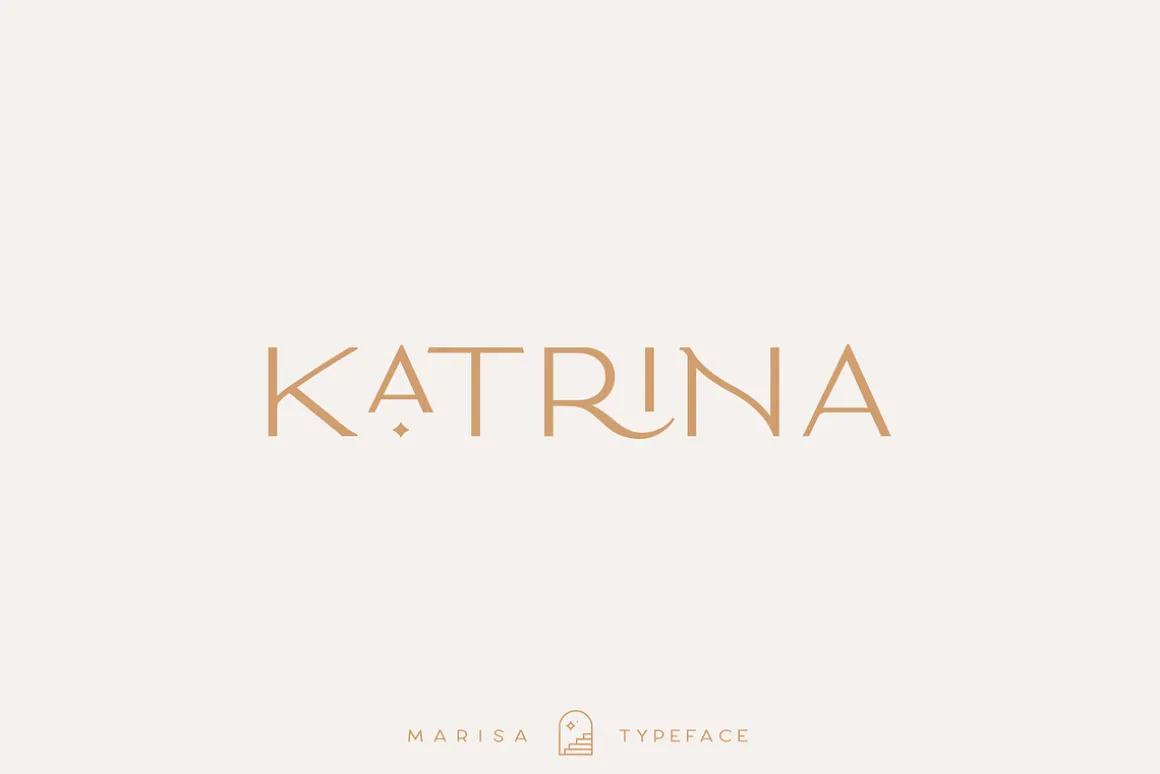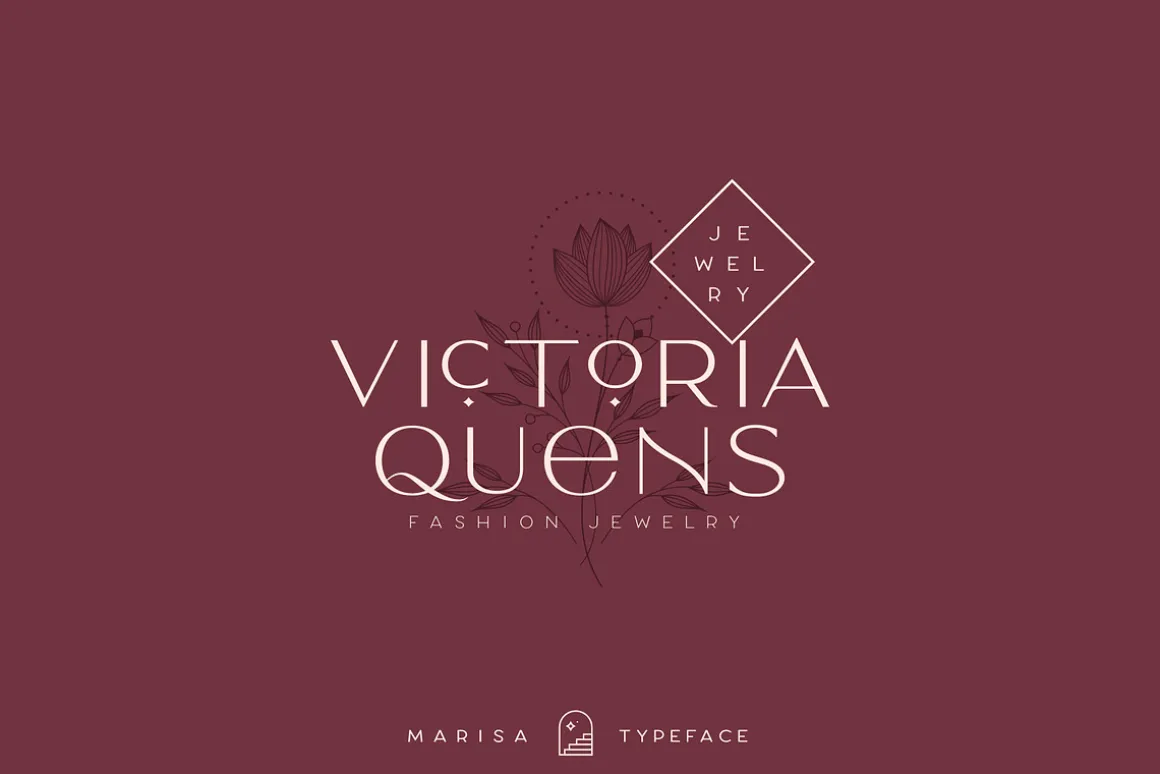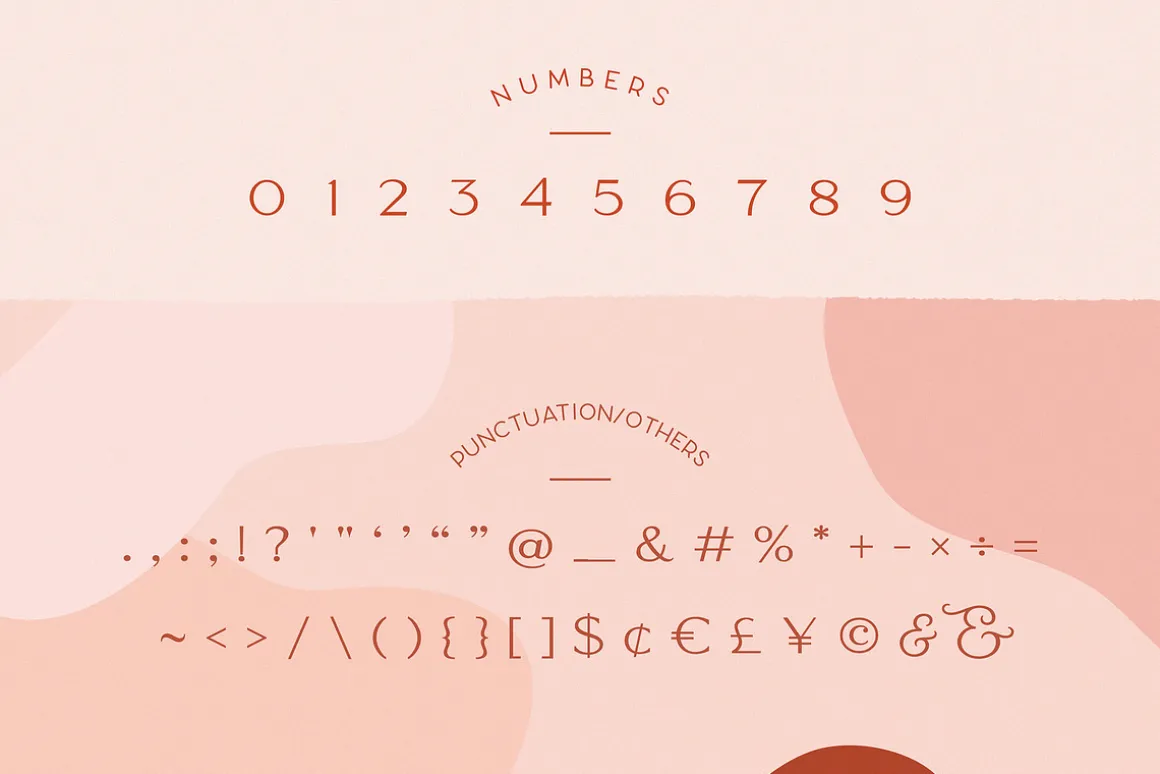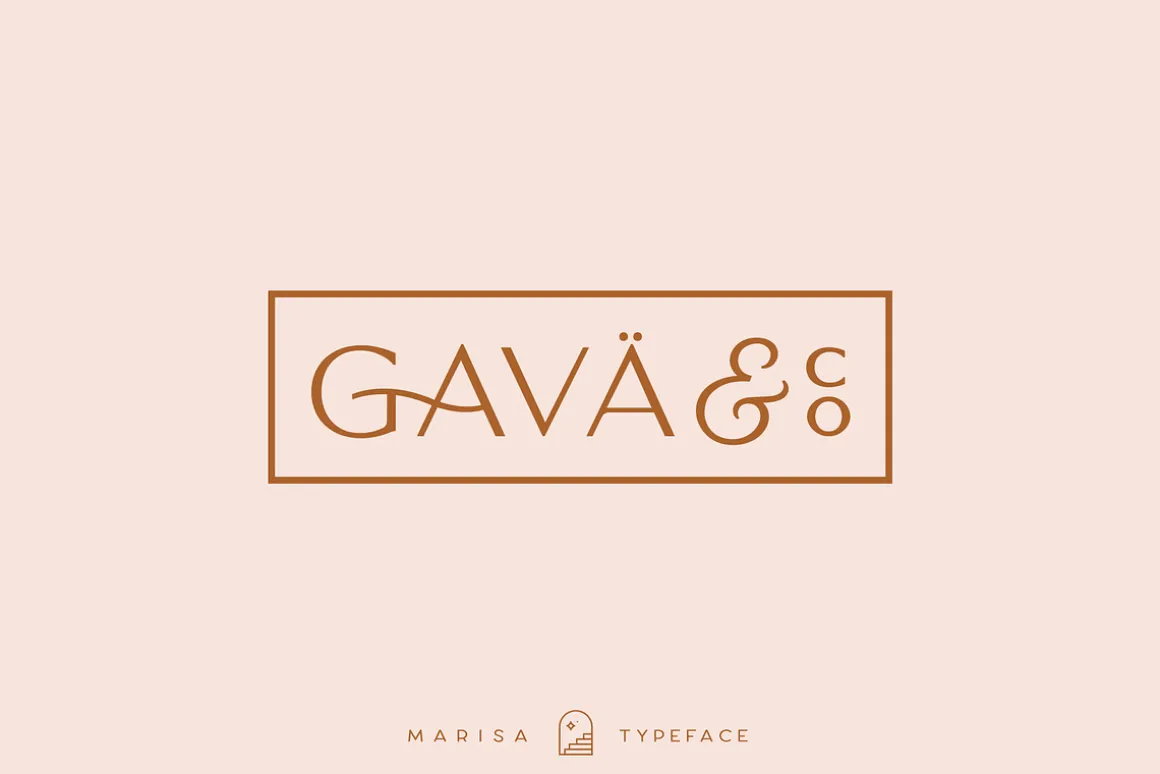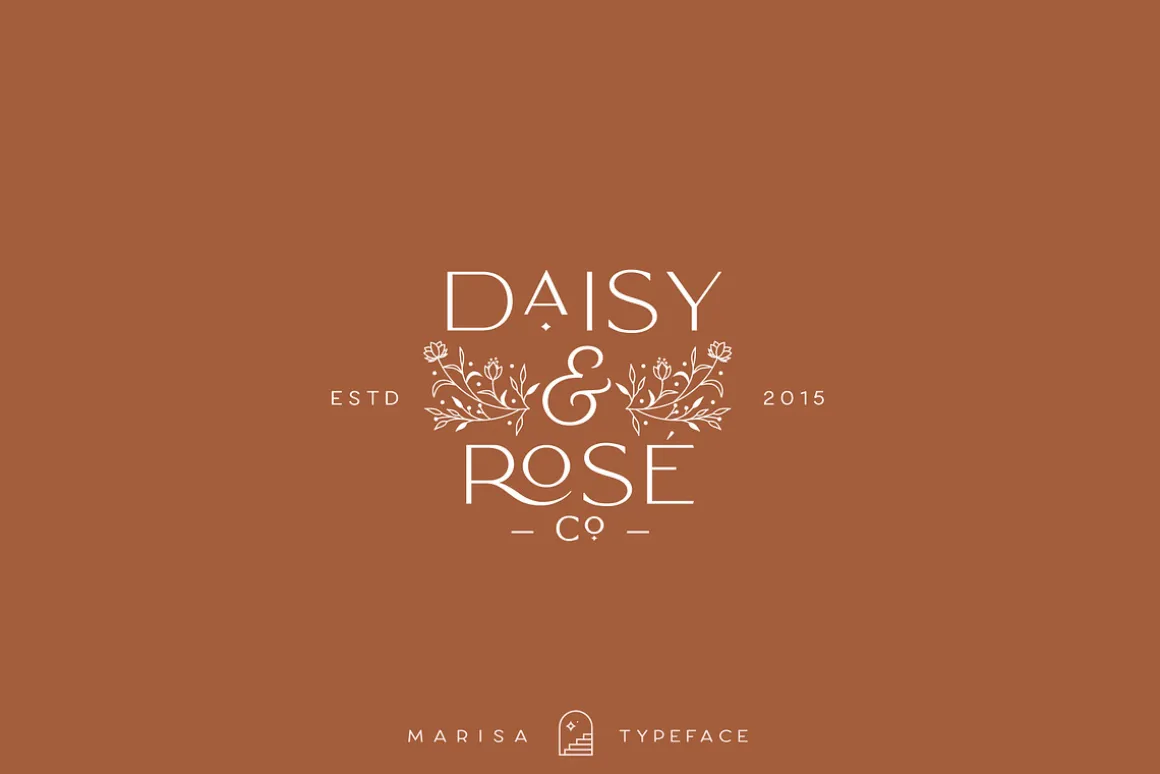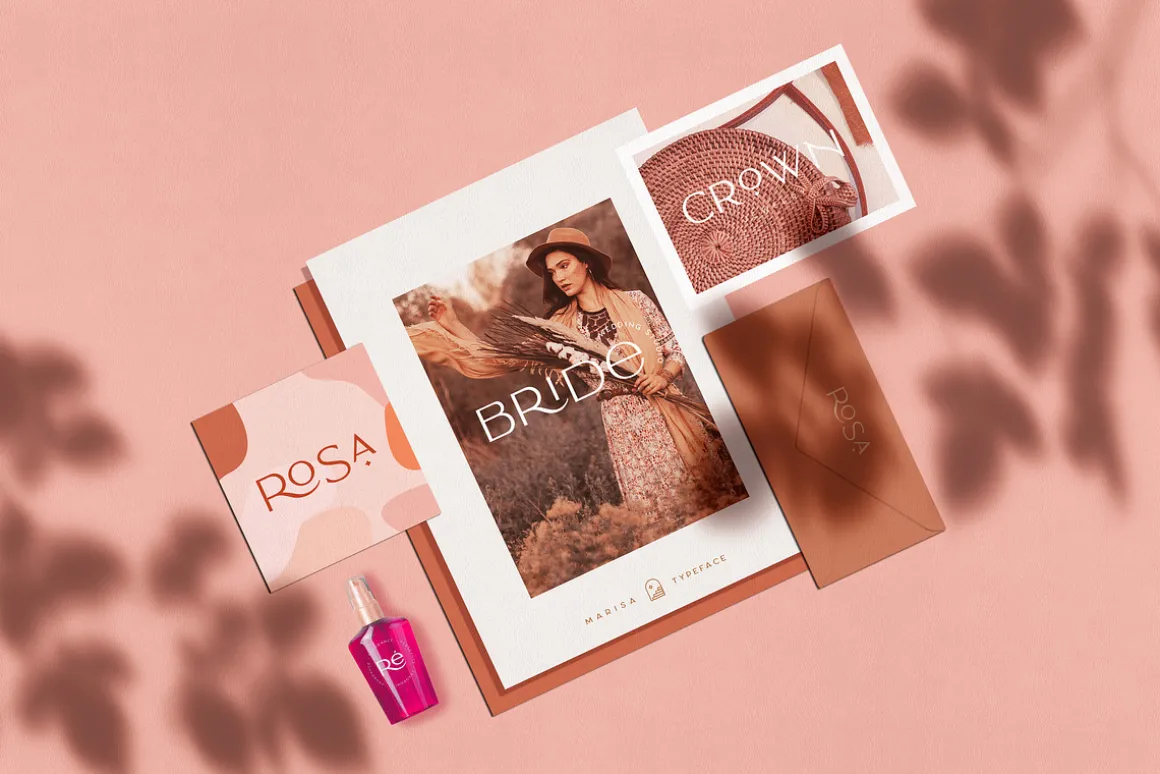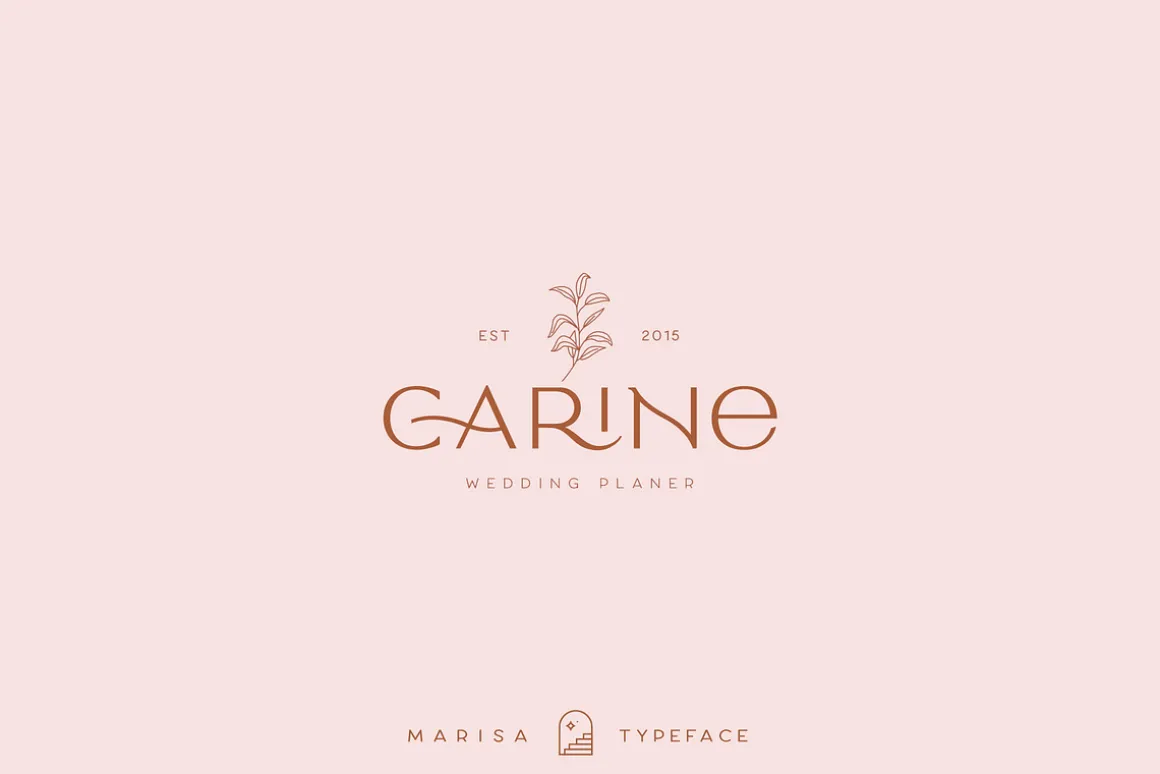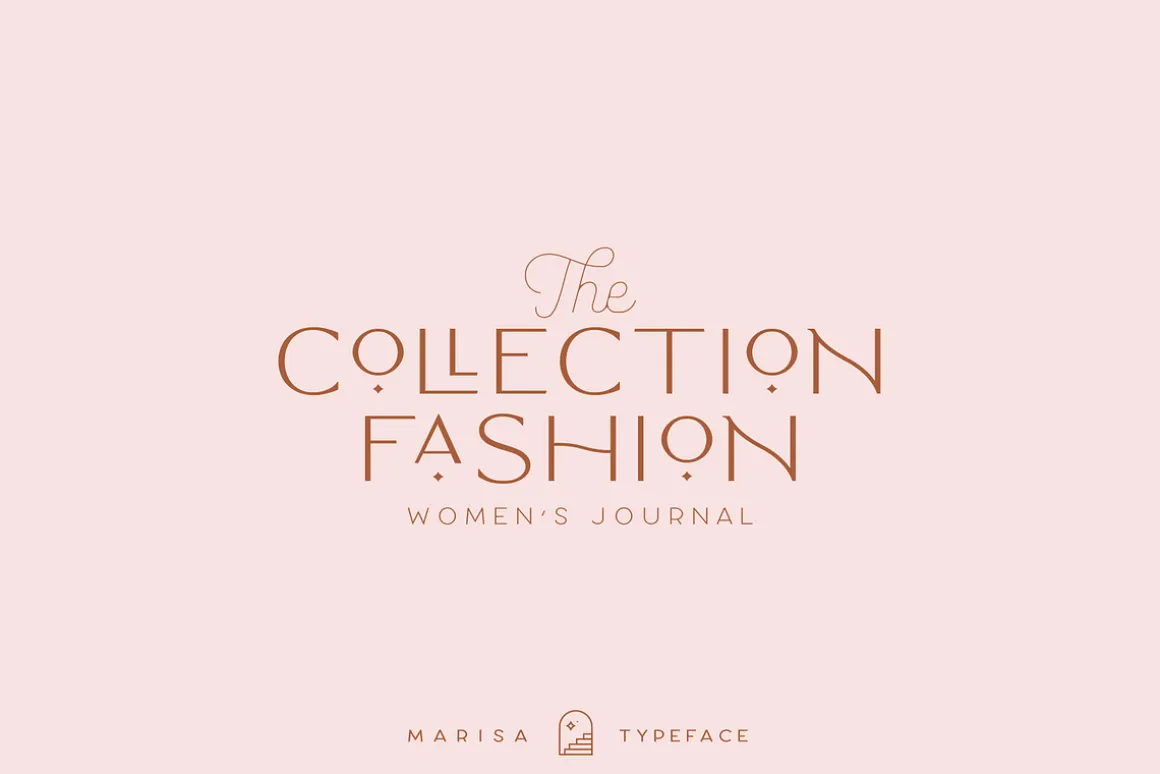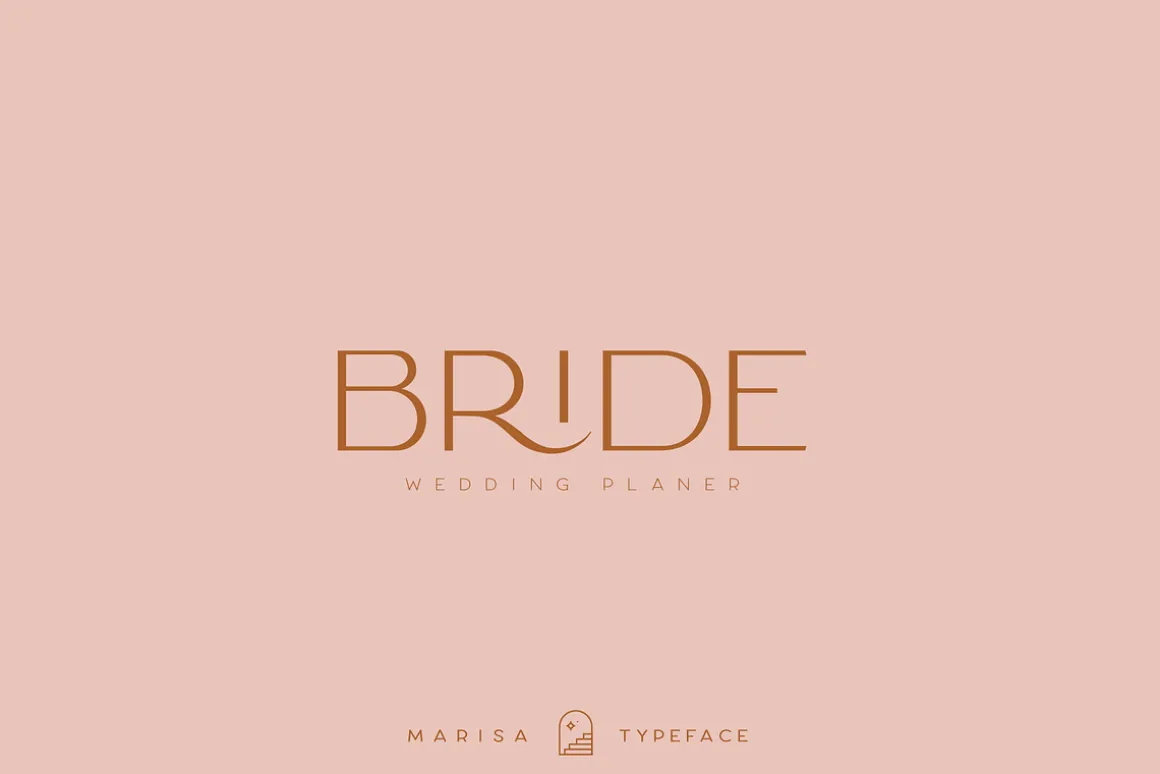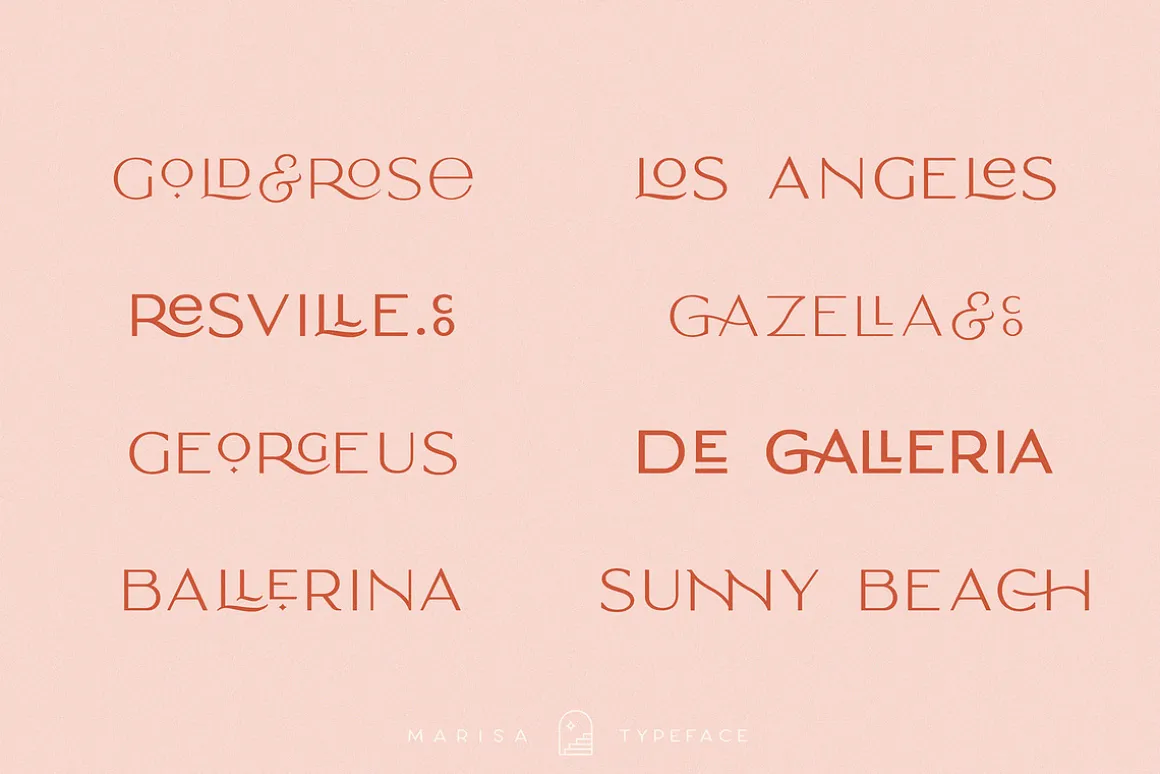
Classy Marisa is a Minimalist Modern Elegant vintage font with beautiful ligatures, tons of special alternative glyphs, ornament and multilingual support. It’s a very versatile font that works great in large and small sizes. Classy Marisa is perfect for branding projects, Logo design, Clothing Branding, product packaging, magazine headers, or simply as a stylish text overlay to any background image.
4 Weights font
All caps
Stylistic Alternates & Ligatures
Numerals & Punctuation
Accented characters
Multiple Languages Supported